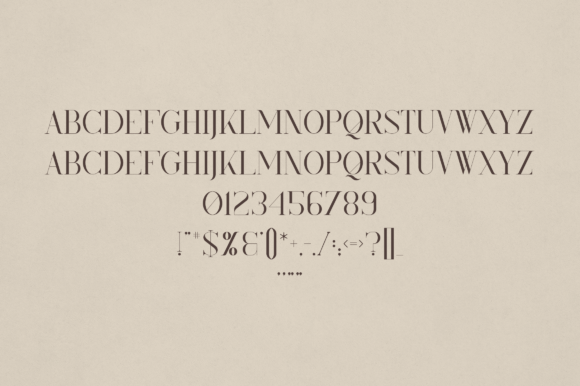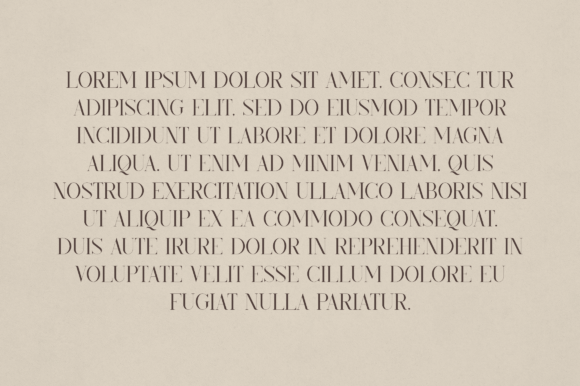
The Elusive Font: A Designer’s Journey to Discover Annalise
I still remember the frustration of working on a branding project, only to hit a roadblock: finding the perfect font. My client wanted something elegant, yet versatile; a font that would make their logo stand out without overpowering the rest of the design. After hours of scouring font libraries and testing various options, I finally stumbled upon Annalise. This beautiful serif font has since become a staple in my design toolkit, and I’m excited to share its charm with you.
An Honest Review of Annalise Font
What I Love About Annalise ✨
• ✅ Elegant and sophisticated design, perfect for high-end branding projects
• ✅ Versatile and adaptable, suitable for various design applications, from logos to magazine headers
• ✅ Beautifully crafted serif details, adding a touch of luxury to any text
• ✅ Extensive OpenType features, including stylistic alternates and glyphs, allowing for creative experimentation
While Annalise is an exceptional font, it’s not without its limitations. Some users may find:
• 🤔 Limited availability of condensed or expanded versions, which may limit its use in certain design contexts
• ⚠️ Occasional inconsistencies in kerning, particularly when using all-caps text
The Story Behind Annalise
Annalise was designed with the intention of creating a font that exudes elegance and sophistication. Inspired by classic serif fonts, the designer aimed to craft a typeface that would be both versatile and luxurious. Through meticulous attention to detail and a passion for typography, Annalise was born – a font that has captured the hearts of designers and creatives alike.
Q: What is Annalise font best suited for?
A: Annalise is perfect for branding projects, home-ware designs, product packaging, magazine headers, and as a stylish text overlay for background images.
Q: Does Annalise support OpenType features?
A: Yes, Annalise features an extensive range of OpenType features, including stylistic alternates, glyphs, and ligatures, allowing for creative experimentation and customization.